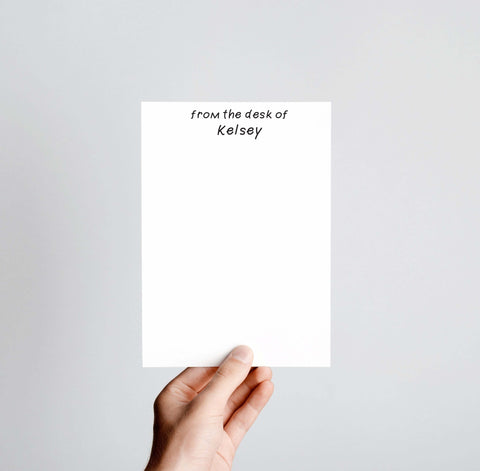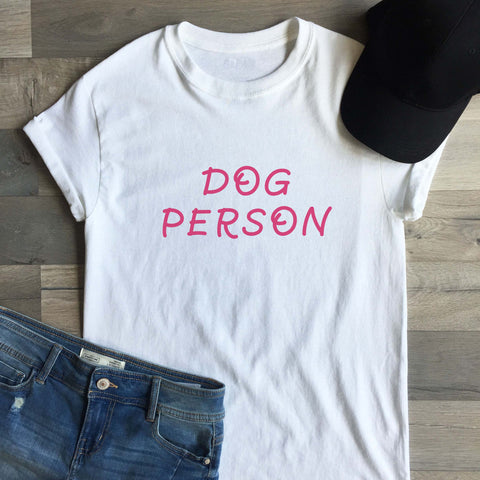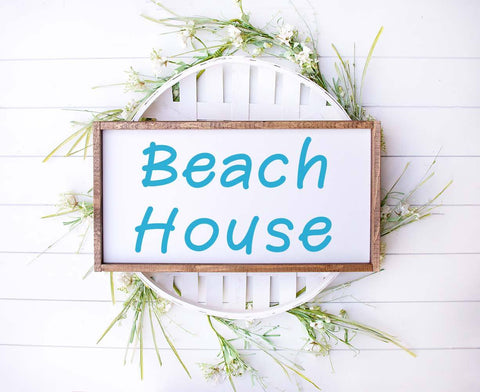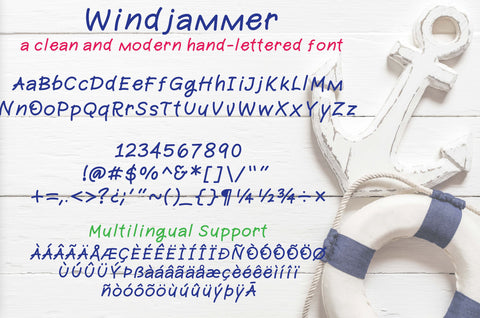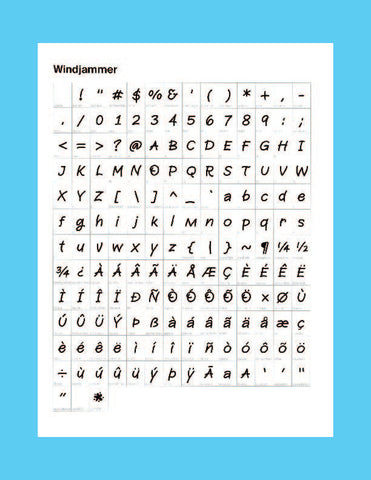
Windjammer Hand Lettered Sans Serif Font | Casual Font | Hand Lettered | Font for Crafting
Windjammer Hand Lettered San Serif Font
Windjammer is a clean and modern casual and versatile handwritten font that’s great for content, signage, sketching and just about anything you can think of. It's perfect when used for stationery, invitations and printed material.